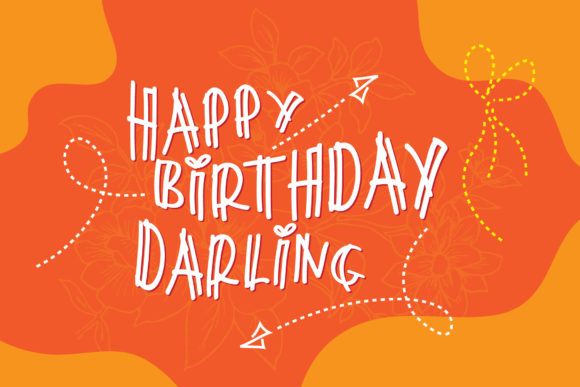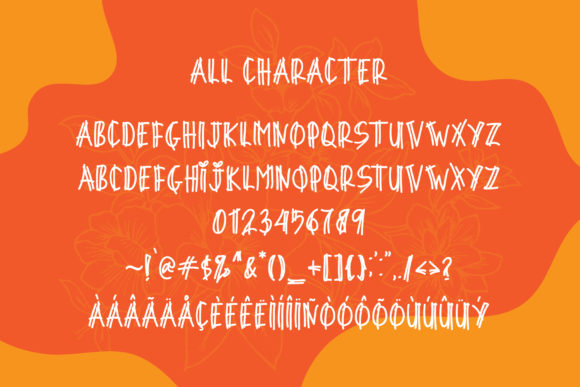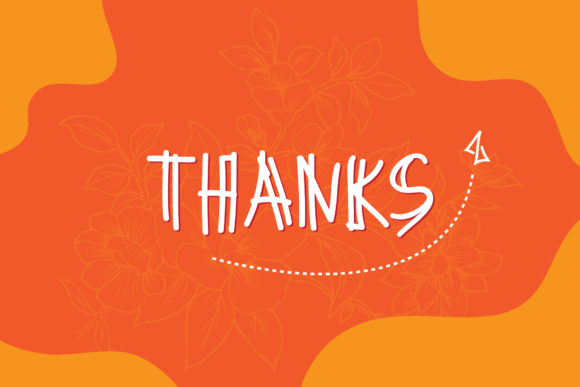
Love Beti Font
About Love Beti Font
Love Beti is a two line random font with contemporary approach to design.
This font can be used in a wide variety of applications from logos and posters to book covers and more.